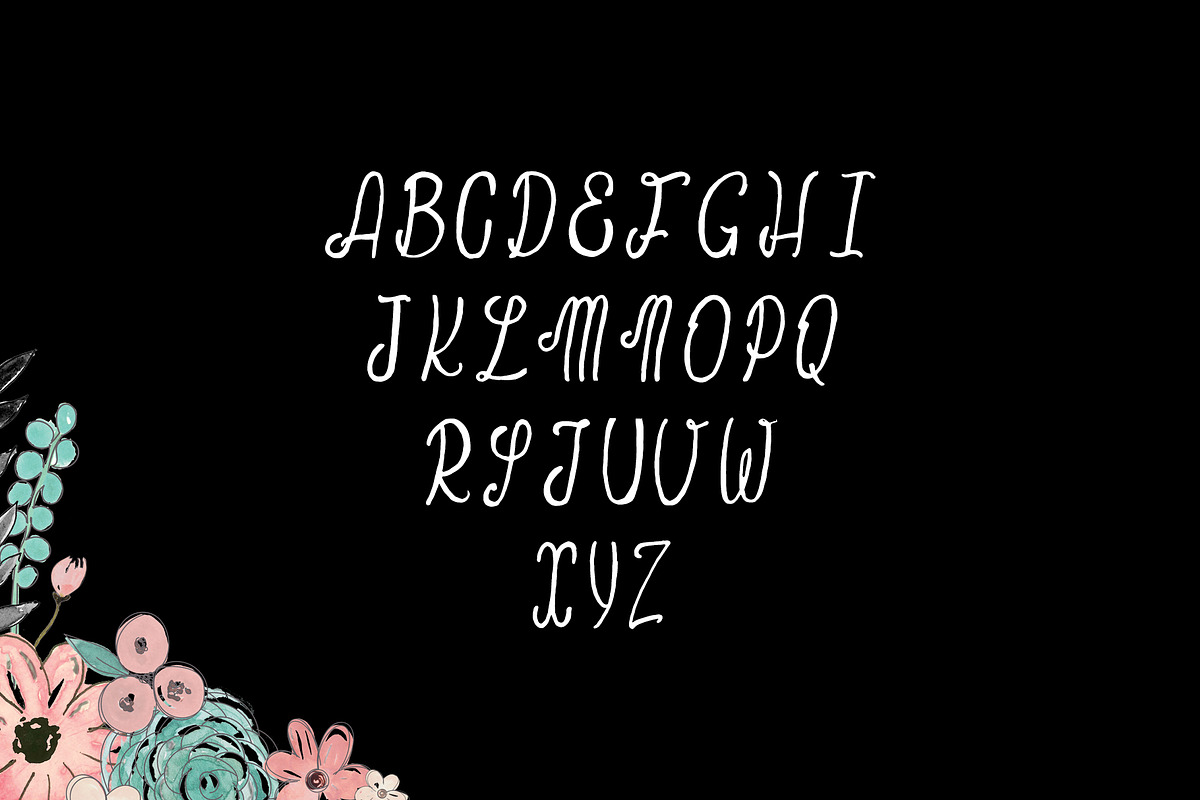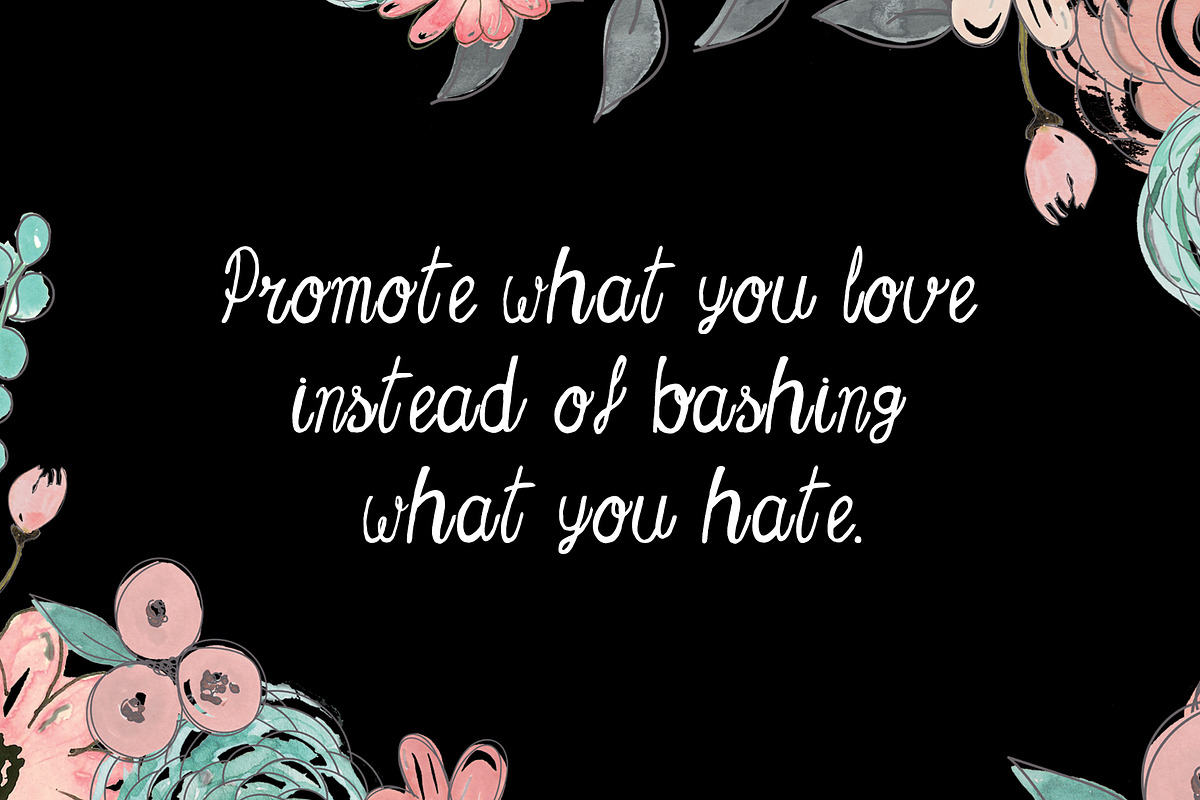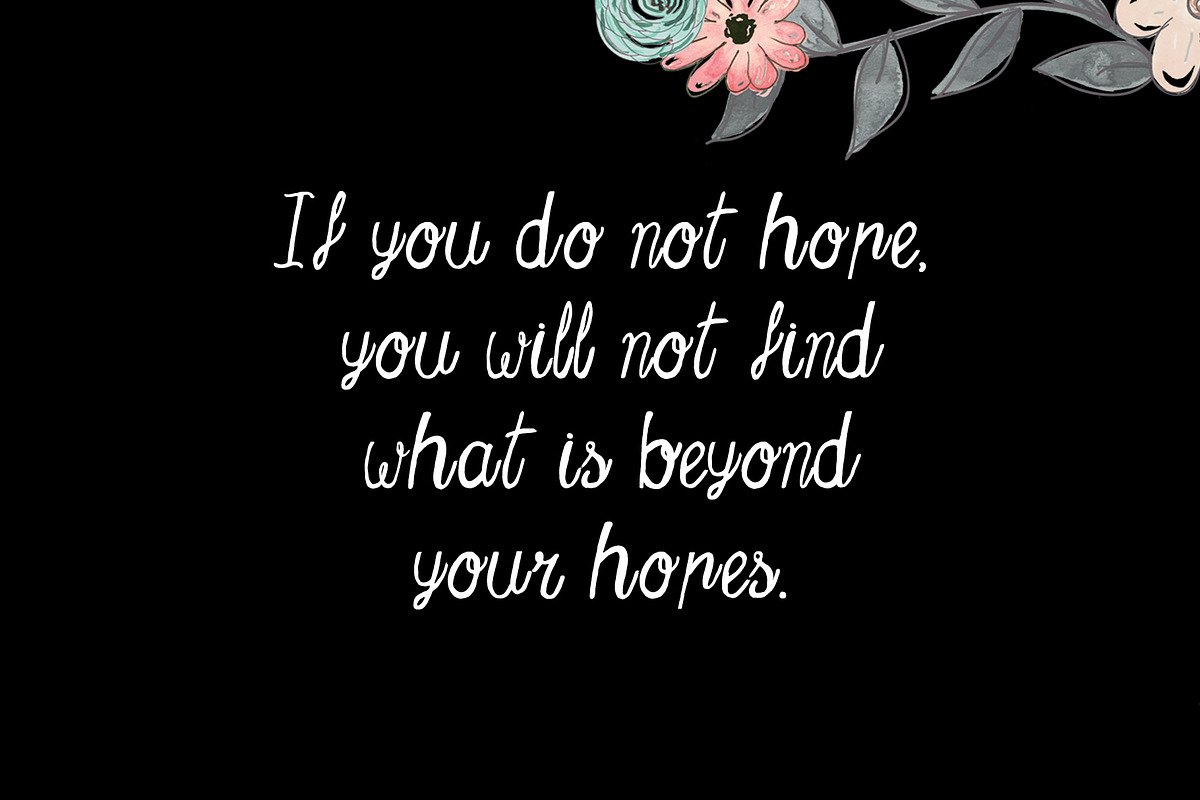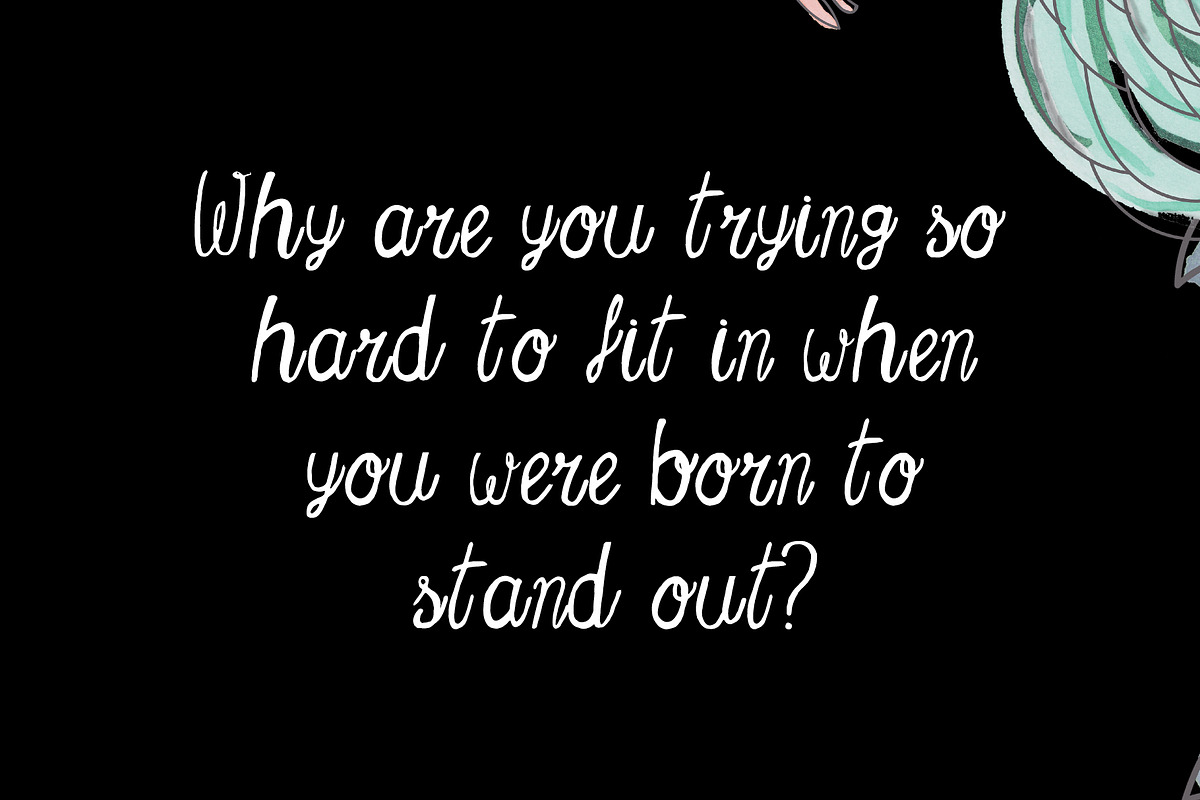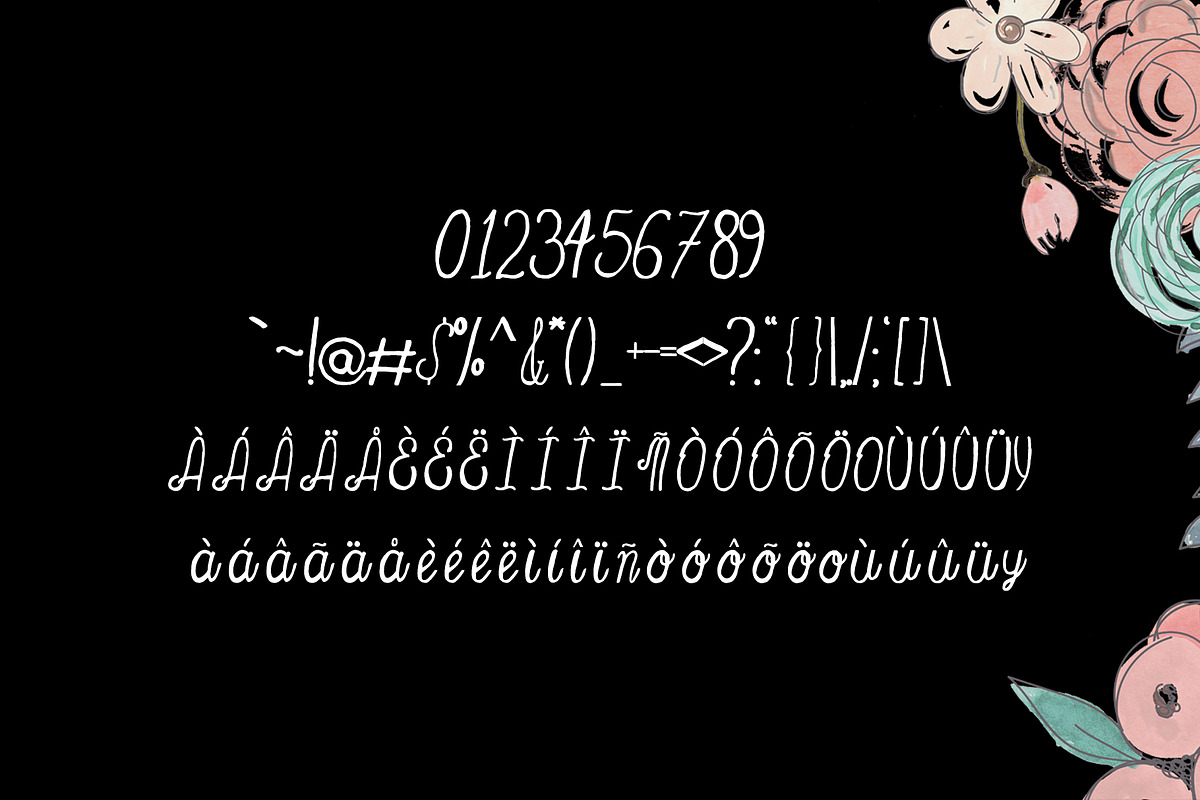
Ulyssa Handwritten Font + Bonus
Ulyssa is a stylish contemporary handwritten font you've been looking for, Its unique flow and style makes it perfect to use for prints, logos, quotes, badges, labels, packaging design, blog, websites, designs, headlines, banners, posters, printings, T-shirts, magazines, promotional product, templates, etc.
Ulyssa Font Features:
Non English Characters ( Latin Extended A )
Ulyssa Handwritten Font + Bonus by Creativetacos fits naturally into Branding, posters, packaging, typography.